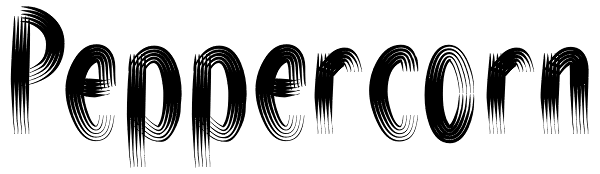
Peppercorn
Peppercorn seems to have been thickly painted on a rough surface. Comes in regular and a spattered Black version. Based on the font Hubbub, which compliments it well.
Peppercorn Black
Peppercorn